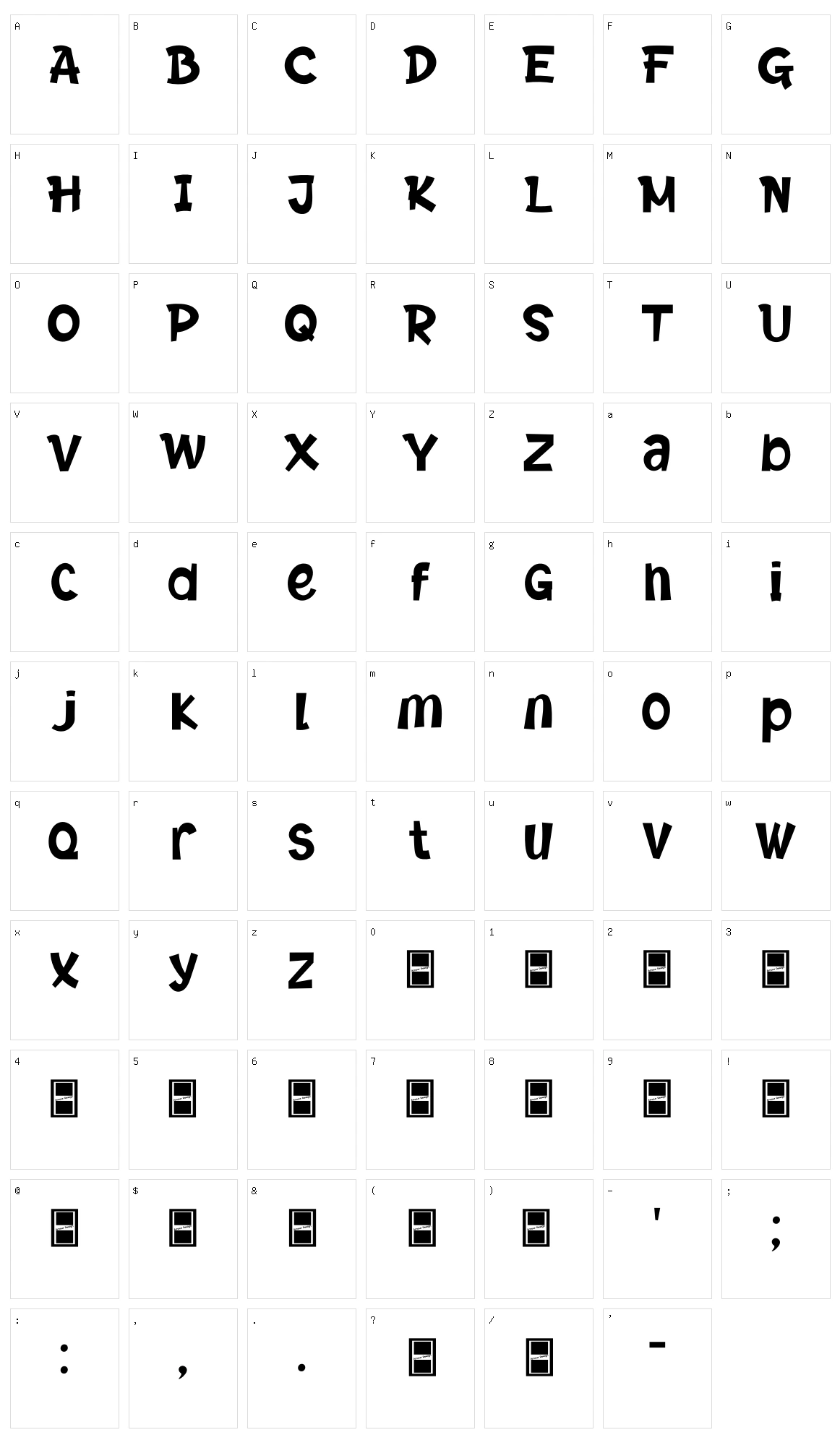
The free font Thorate is carefully designed by Murozakul Akhsan, showcasing a thoughtful balance of creativity and usability and falls under the Cartoon font style. When you download the ZIP file, it contains only 111.16 KB of font files, making it lightweight and quick to download. Please review the license details below to understand permitted usage and distribution rights. If license information is not available, we recommend using this font for personal projects only or contacting the author directly for commercial usage permissions.